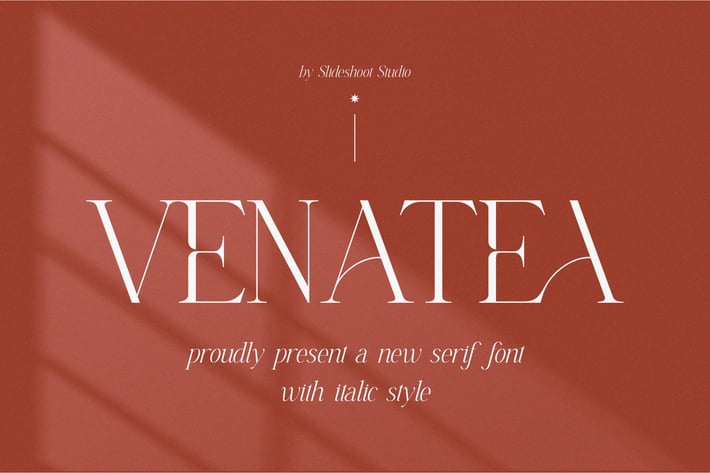
Venatea || New Serif Font With Italic Style
Venatea is a serif font that exudes luxury and elegance. It draws attention and enhances any design. It is perfect for invitation card designs, company logos, movie titles, movie names, business cards, book titles, brand names, and many other designs. Venatea is an elegant serif font that exudes sophistication and cohesion. Its stylish inflections and ligatures make it a perfect partner for any project.
- Uppercase and lowercase
- Numbering and Punctuation